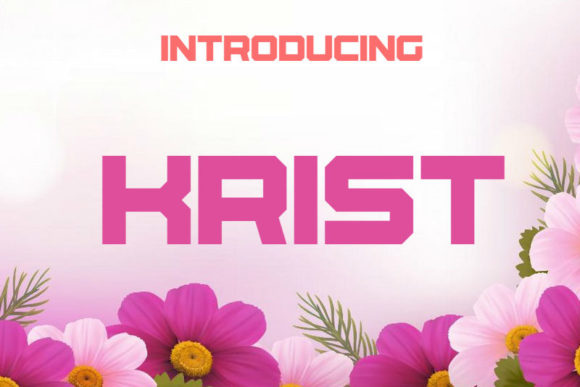
Krist Font
This versatile typeface is perfect for modern lifestyle branding, contemporary fashion labels, trendy cafe signage, urban design studios, creative portfolios, stylish product packaging, millennial marketing campaigns, and chic social media graphics. Krist Font delivers fresh appeal in applications where modern style and youthful energy are essential for connecting with contemporary audiences.
What makes Krist Font so exciting is its perfect balance of contemporary sophistication and accessible charm. The font features clean, well-proportioned letterforms with subtle personality details that feel both current and timeless. Each character has been carefully crafted to ensure excellent readability while expressing modern confidence and stylish appeal. The typeface's adaptable nature allows it to transition seamlessly between professional and casual contexts, making it perfect for brands targeting design-conscious consumers who appreciate quality aesthetics without pretension.
The Krist Font includes essential style variations: Regular, Bold, Light, and Italic versions. This contemporary collection provides designers with flexible options to create dynamic layouts and establish clear visual communication across diverse modern applications. Each style maintains the font's core appeal while offering distinct characteristics for different emphasis needs and contemporary design themes.
Whether you're developing lifestyle brand identities, creating trendy marketing materials, or designing contemporary digital experiences, Krist Font Free Download offers the modern aesthetic that resonates with today's style-conscious audiences. Its fresh character makes it particularly suitable for fashion brands, creative agencies, lifestyle businesses, and contemporary service providers. The font's versatile nature ensures consistent performance across all platforms and media, while its stylish appearance builds immediate connection with audiences seeking authentic modern design.
This contemporary typeface represents the perfect solution for designers who understand the importance of fresh, accessible style in meaningful brand communication with modern consumers.